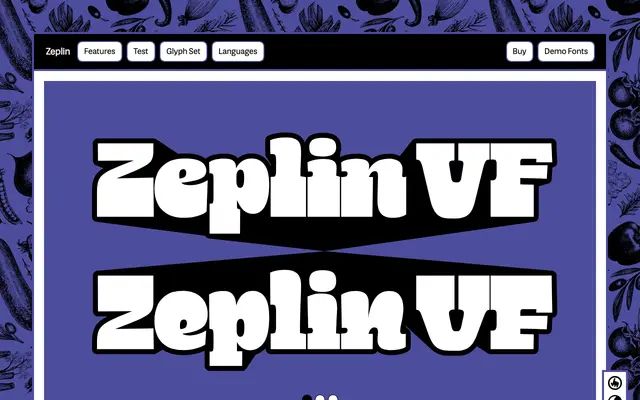
Zeplin
A variable display font by Jamie Chang that shifts counter shapes across nine directional styles to produce unusual weight distributions suited to headlines and motion work.
Released in 2025, Zeplin uses two variable axes to move internal counter shapes in nine cardinal directions, named SouthWest through NorthEast, creating letterforms that range from conventional to deliberately lopsided. The approach borrows from Wild West wood type, brush lettering and Art Deco contrast, making it particularly suited to animated or motion-graphic contexts where the axes can be interpolated for effect. Case-sensitive forms, single-storey 'a' alternate and standard ligatures are included, with coverage across Latin Extended and Cyrillic scripts.
A display typeface with variable axes controlling counter shape placement and weight distribution, drawing on Wild West lettering, brush calligraphy and Art Deco contrast. Its expressive, animated qualities place it firmly in the display category.